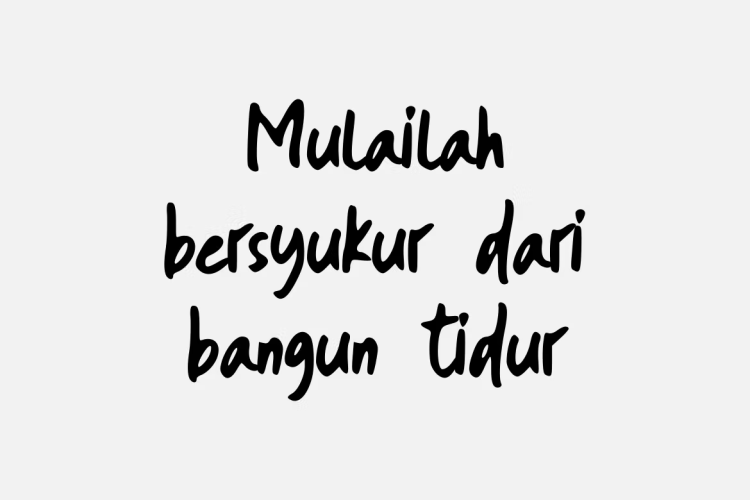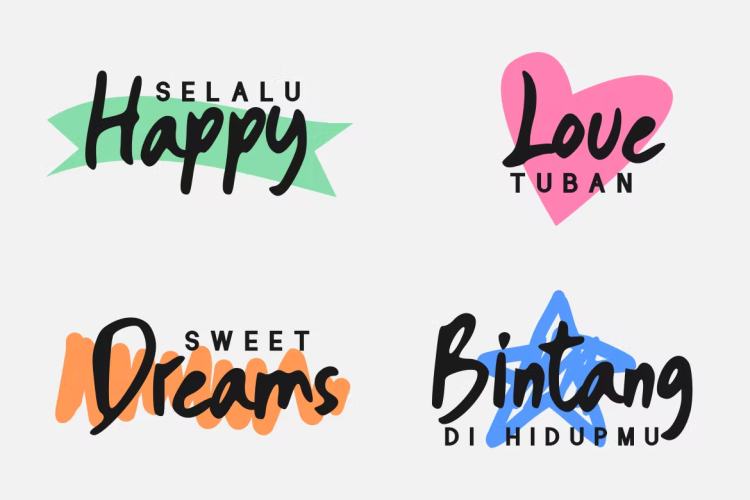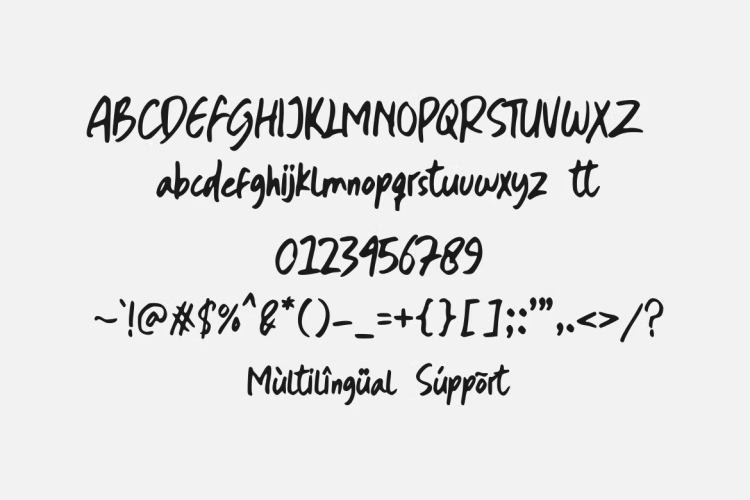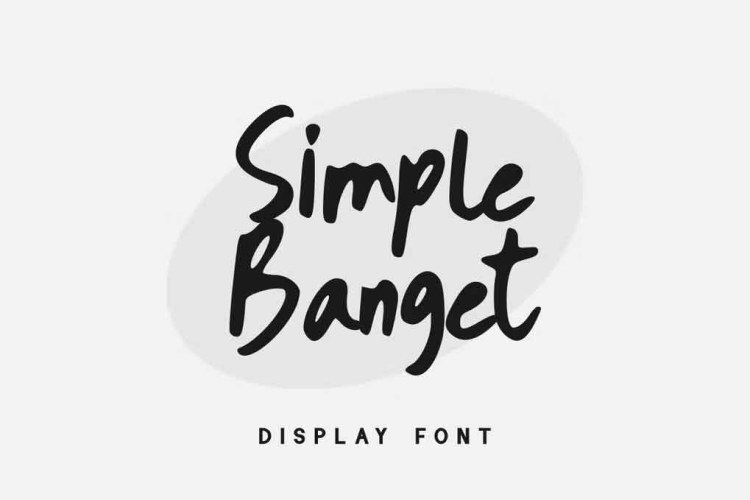
Simple Banget Font
Simple Banget is the display font
This font is perfect for any design project that requires display fonts,
Where Simple Banget Font works best
Seasonal campaigns
Simple Banget Font gives a holiday or themed promotion its own look without redrawing anything; use it for the headline only.
Party and family invitations
Decorative letters set the mood before the text is read. Pair Simple Banget Font with a plain sans for the practical details.
Game and video titles
Themed lettering sells the world of a game or a channel in one frame.
What kind of work does Simple Banget Font suit?
It sits in the Decorative Fonts group and reads as creative, decorative fonts, display. That makes it a candidate wherever those qualities help: headings, packaging, social graphics and brand work. Set it at the size you plan to use before deciding.